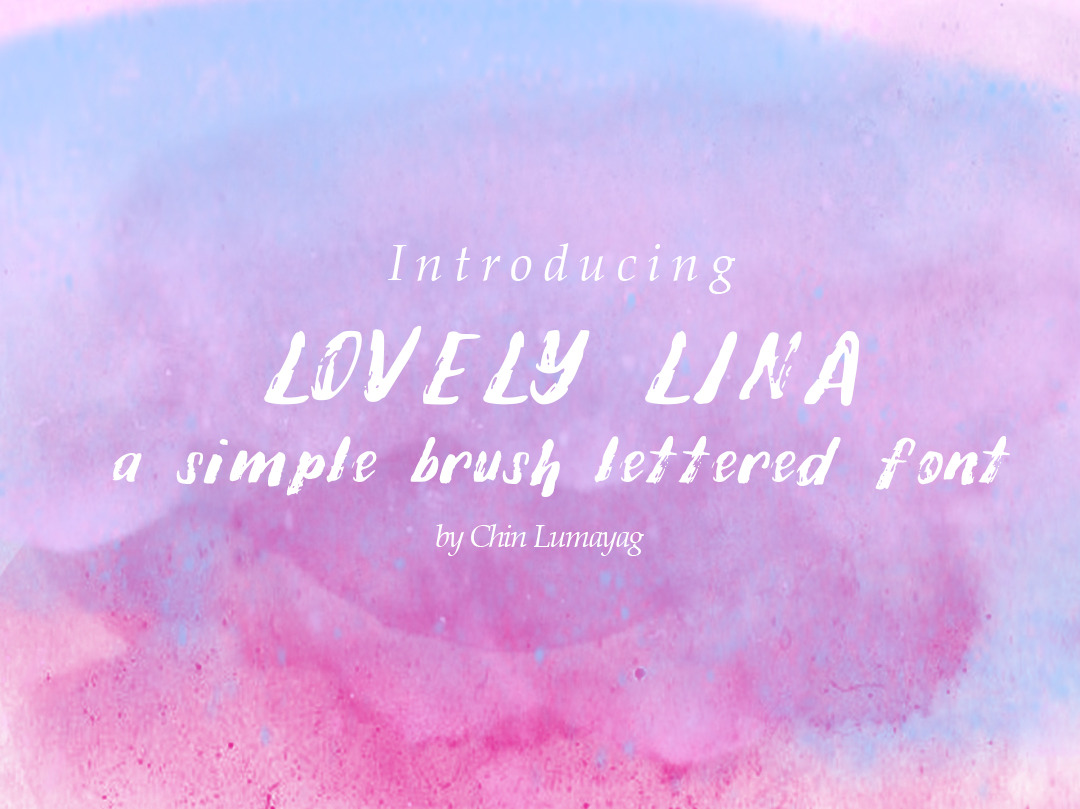
Lovely Lina Handmade Font
Lovely Lina Font is a brush hand lettered font ideal for digital prints, cards and book covers.
Lovely Lina is named after my grandmother who passed away last year. I can always remember how she was very much artistically inclined, especially with her handwriting. Though not as good as hers, I made a font using a brush that she would have used had she been alive.